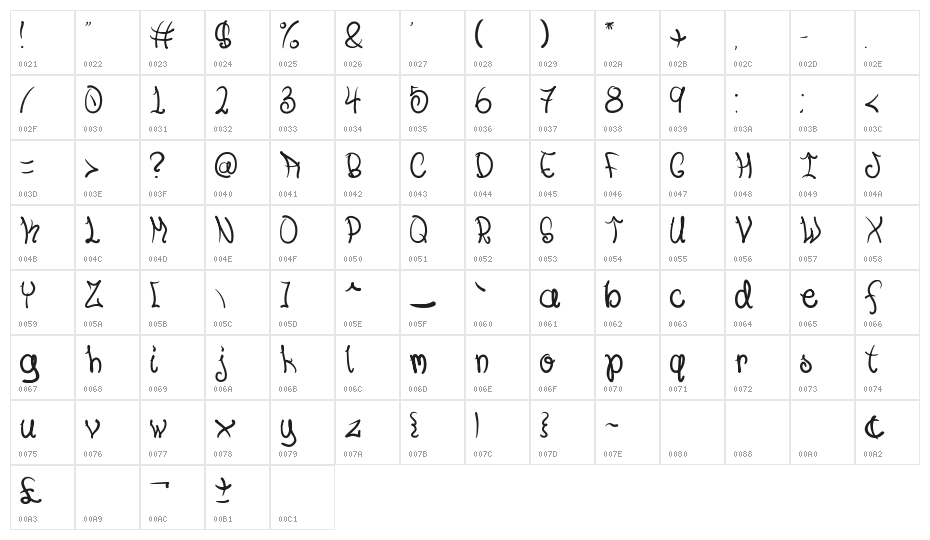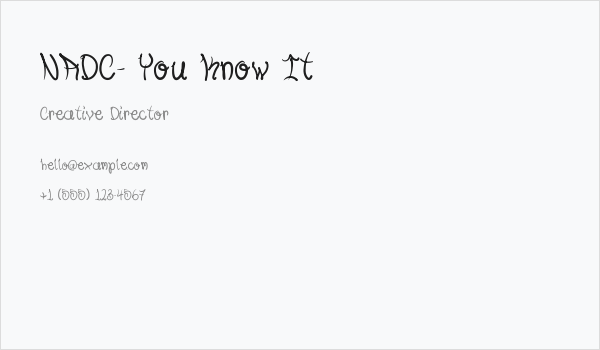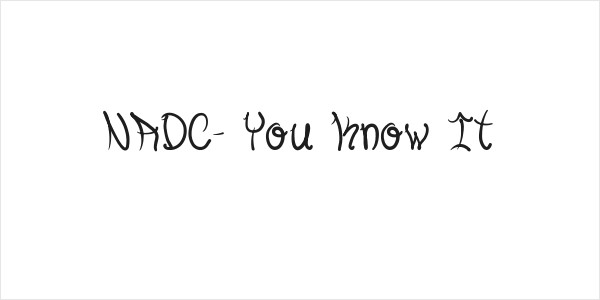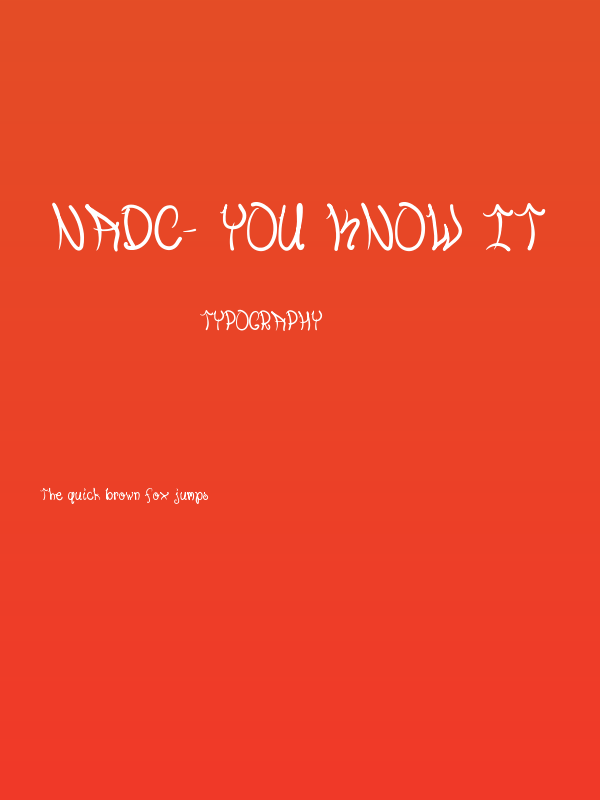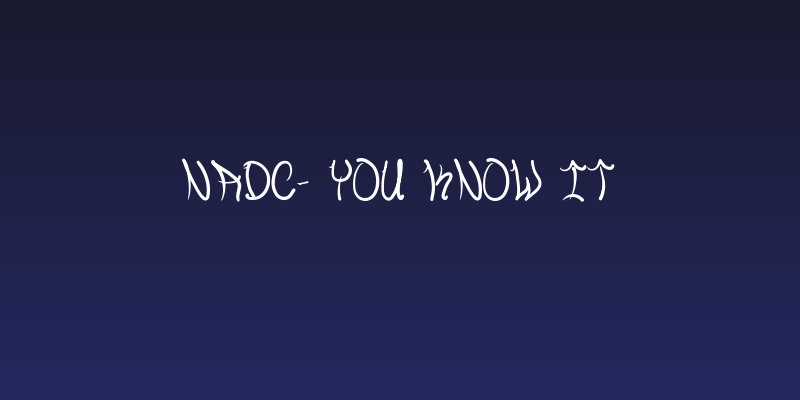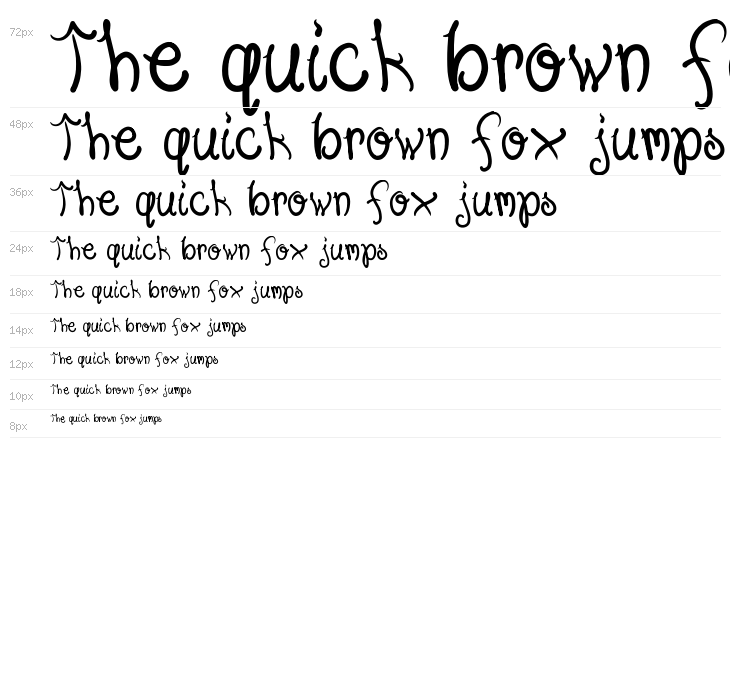
NADC- You Know It Font
NADC- You Know It Description
This font features a whimsical and playful design, characterized by its curvy and flowing letterforms. Each character exhibits a unique, hand-drawn quality, with varying stroke thickness that adds to its charm. The uppercase letters are bold and prominent, while the lowercase letters maintain a consistent style with slightly more subtle curves. Numbers and special characters follow the same playful aesthetic, making the font suitable for creative and informal applications. The overall appearance is lively and dynamic, perfect for capturing attention.
Proposed ProjectsIdeal for children's book covers, playful branding, greeting cards, and creative posters.